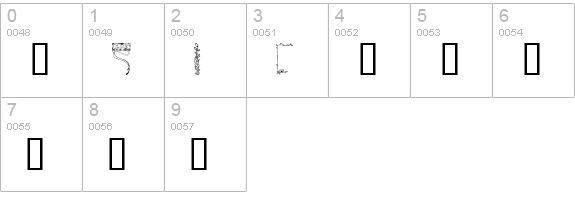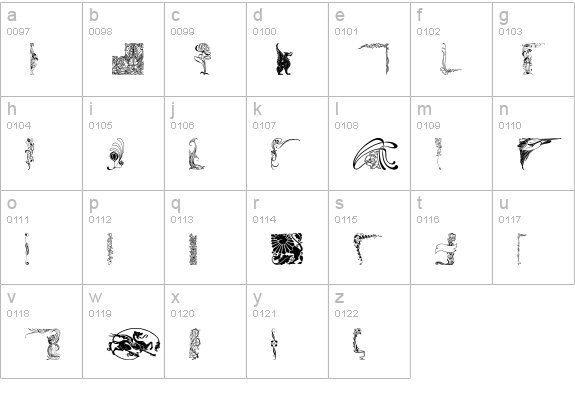
MirrorImage Font Details
MirrorImage font is a stunning display typeface that beautifully captures the essence of elegance and sophistication. With its unique blend of modern and classic design elements, MirrorImage font is perfect for adding a touch of luxury to your projects. The intricate details and sleek curves of this font make it a versatile choice for a wide range of design applications, from branding to invitations to packaging. What makes MirrorImage font even more appealing is that it is available for free download at FontsMarket.com. This means you can easily access this exquisite font and elevate your designs without breaking the bank. Whether you're a professional designer or a hobbyist, MirrorImage font is sure to impress with its timeless beauty and effortless charm. Download it today and let your creativity shine with this exceptional typeface.